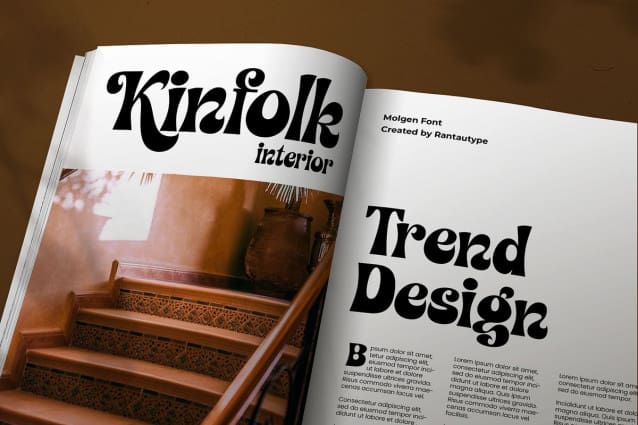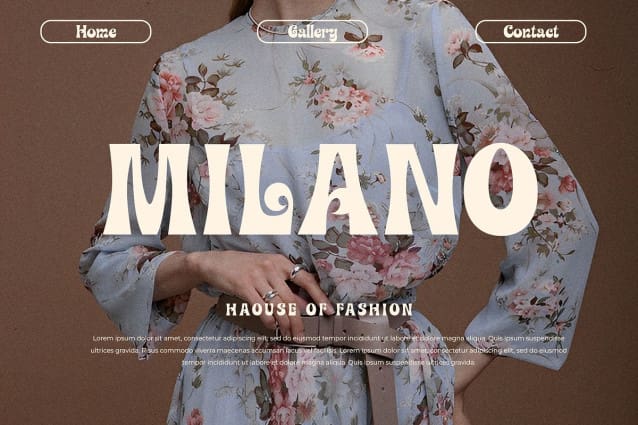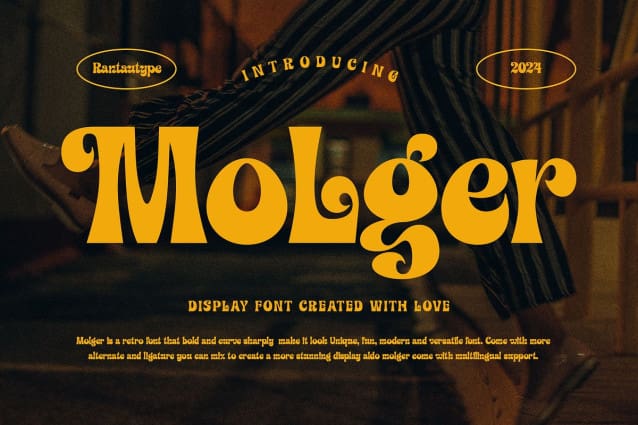
Molger Retro Font
Molger Retro Font is a retro font that bold and curve make it look Unique, fun, modern and versatile serif Font. Come with more alternate and ligature you can mix and max to create a more stunning display.
Molger Retro separate in reguler and italic, is a beautiful choice for any creative endeavor, creating fun, modern, chic, lifestyle design such as logos, title, cover, branding, display and magazine, and more. Now you have more choice when using Molger to make you design stand up!!